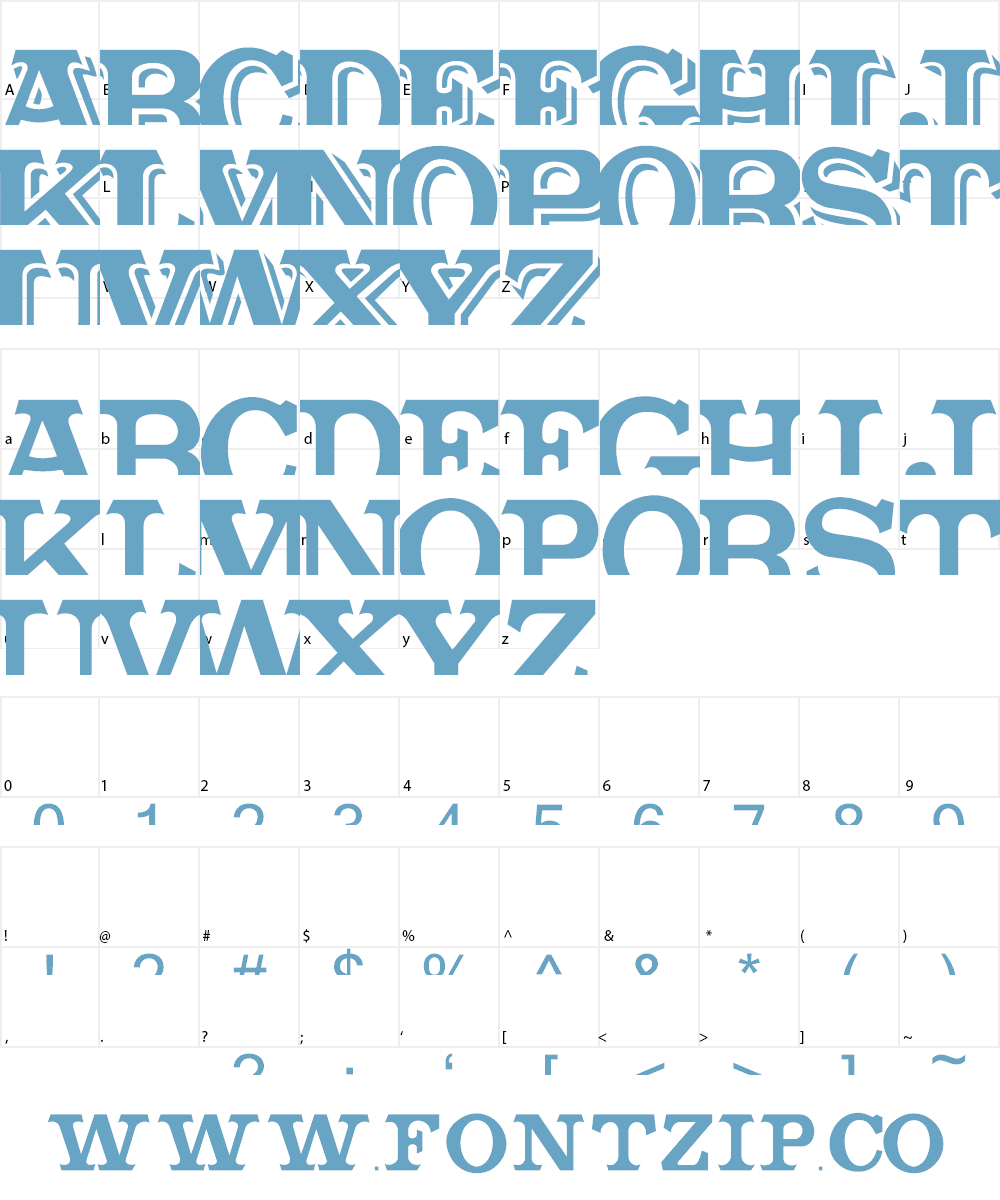
Outstanding is a great font for titles, signs, and athletic clothing.
"...meticulously processed by hand to create outlines that are smooth as a baby's bottom". - Luc Devroye